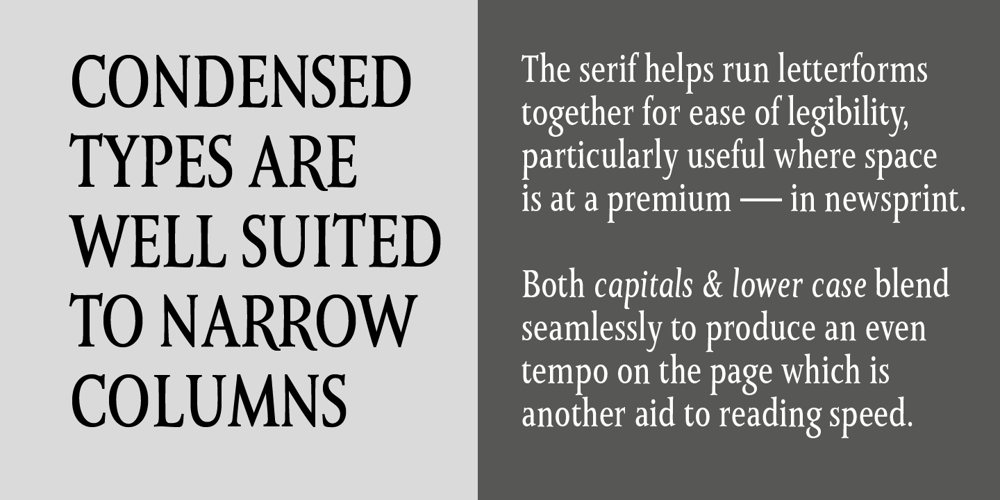
Monkton Book Condensed
Monkton Book Condensed font
Monkton Book Condensed Font Family was designed by Adrian Williams and published by Club Type. Monkton Book Condensed contains 2 styles and family package options. Packing more copy in a narrow space is the main reason for using a condensed type. Characters with a more ovular shape tend to be less wide than their circular counterparts and will allow for more letters per line. In narrow columns for example, this typeface can provide up to 25% more copy than the regular typeface in the same space.Another reason is when a larger type size is called for — used sparingly it is useful for headings or headlines.For emphasis, narrower letters can provide a stark contrast in the flow of reading, creating impact while retaining typographic character. Condensed types can specially useful in tables and charts because typically both use few words in each block. If space now allows, you may think about the luxury of a larger point size. This optimizes space while keeping your typography more easily legible.